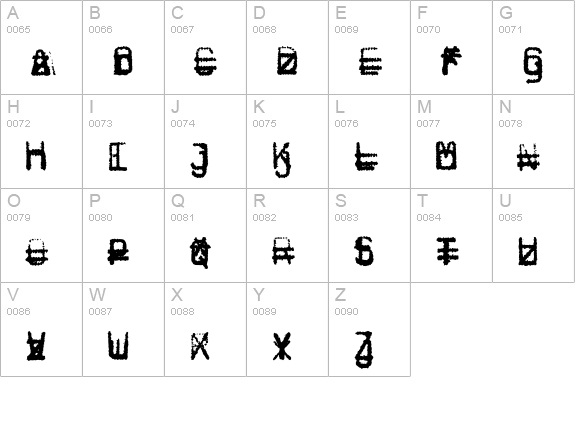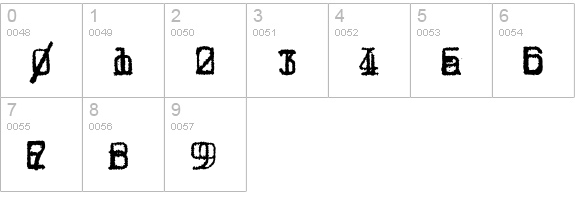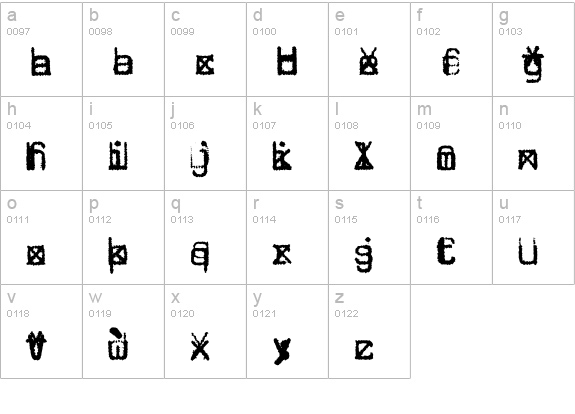
Magda-Trash Font Details
Introducing Magda-Trash, a bold and expressive font that breaks free from convention and dares to push the boundaries of typography. This rebellious typeface is designed to make a statement, with its rugged edges and raw aesthetic that exudes a sense of edgy creativity. Magda-Trash is not your average font – it's a visual representation of the unconventional and the unapologetic. Its unique design captures the essence of street art and urban culture, drawing inspiration from graffiti and the energy of city life. Each letter is meticulously crafted to showcase its distinctive character, creating a visual experience that is both captivating and unorthodox. But what sets Magda-Trash apart is not just its striking appearance – it's also the fact that it is freely available to download at FontsMarket.com. We believe that creativity should not be limited by financial constraints, which is why we have made Magda-Trash accessible to all, without any cost. Now, designers, artists, and enthusiasts alike can unleash their imagination and give their projects a touch of rebelliousness, without having to worry about budgetary limitations. Whether you're working on a bold branding project, designing eye-catching posters, or simply looking to infuse your visual creations with a touch of urban attitude, Magda-Trash is the perfect choice. Its versatility allows it to adapt to various design styles, while its free availability ensures that your creativity is not hindered. So, embrace the unconventional, break free from the norm, and elevate your designs with the unmistakable energy of Magda-Trash. Download this free font at FontsMarket.com and let your imagination run wild.